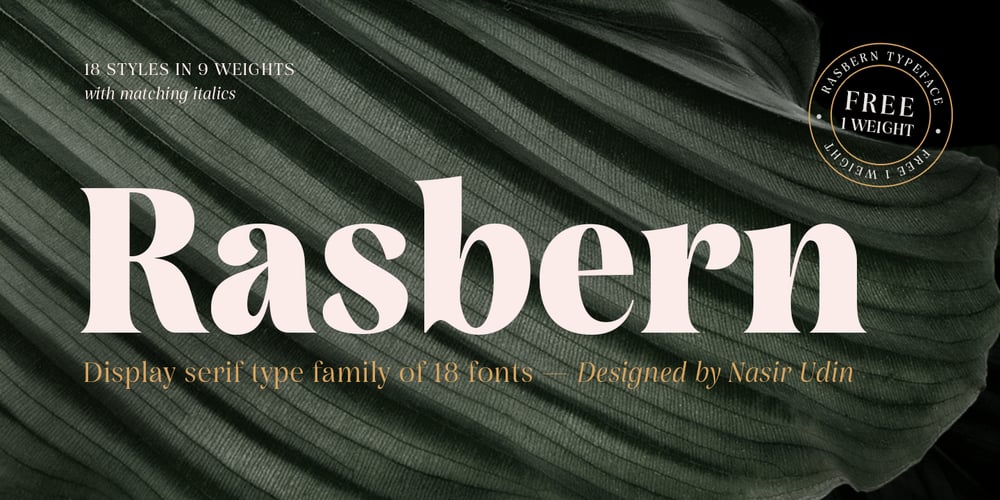
Rasbern
Rasbern font
Rasbern Font Family was designed by Nasir Udin and published by Nasir Udin. Rasbern contains 18 styles and family package options. Rasbern is a display serif typeface with high contrast and refreshing looks.Ranging from thin to black with italics, Rasbern offers many possibilities to be applied in many graphic or editorial projects. The lighter weights are suitable for short paragraph, and the heavier weights are perfect for headlines, perfectly suitable for display purpose such as branding, book covers, and web heading.Rasbern has extended latin character set that supports 200+ latin-based languages.